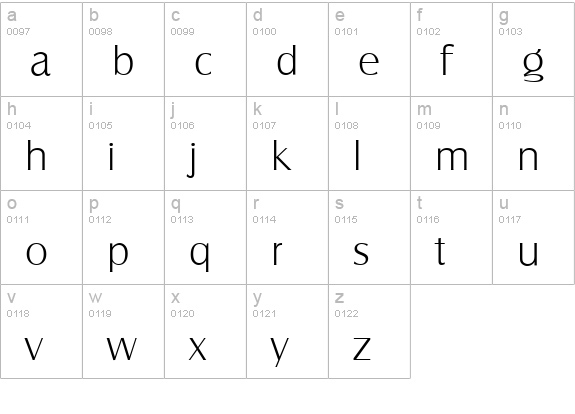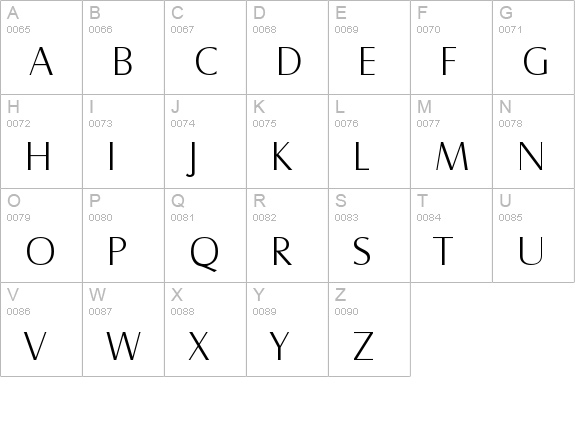
SalzburgSerial-Xlight-Regular is the standard, neutral variant in the SalzburgSerial typeface family \xE2\x80\x94 well suited to general body text, paragraphs, and standard typographic work.
SalzburgSerial-Xlight-Regular font is a stunning and elegant typeface that exudes sophistication and modernity. With its clean lines and sleek design, this font is perfect for creating eye-catching designs that demand attention. Its light weight adds a touch of delicacy, making it ideal for projects that require a subtle and refined look. The versatility of SalzburgSerial-Xlight-Regular font makes it suitable for a wide range of design applications, from branding and advertising to editorial and web design. Whether you're working on a logo, a poster, a website, or a magazine layout, this font will elevate your project and give it a polished and professional finish. Best of all, SalzburgSerial-Xlight-Regular font is free to download at FontsMarket.com. This means you can start using this beautiful typeface in your projects right away, without having to worry about any costs. Don't miss out on this amazing opportunity to enhance your designs with the timeless elegance of SalzburgSerial-Xlight-Regular font. Download it now and let your creativity soar!